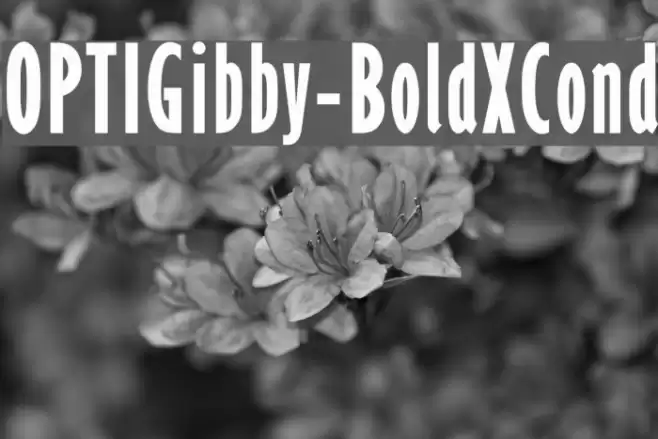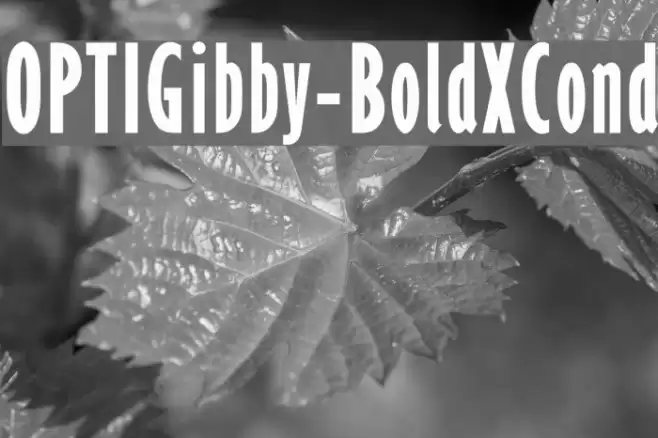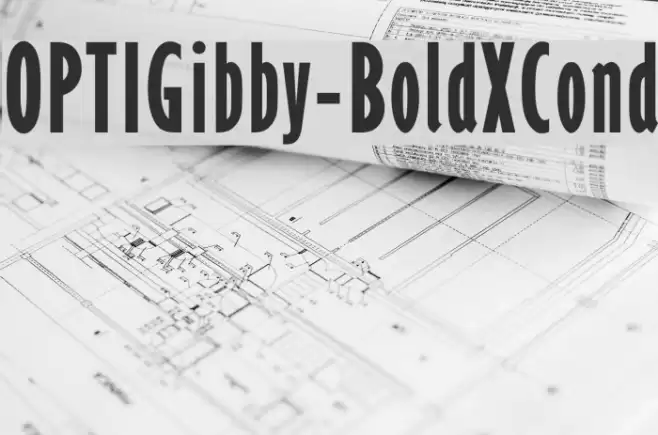
OPTIGibby-BoldXCond Font
OPTIGibby-BoldXCond Description
This font features a bold and condensed style, characterized by its tall, narrow letterforms and strong presence. The uppercase and lowercase letters maintain a consistent width, giving the typeface a uniform appearance. The numbers and special characters complement the alphabet with similar boldness and condensed proportions. The overall design is striking and impactful, making it suitable for attention-grabbing headlines and titles. The font's clean lines and lack of serifs contribute to its modern and assertive aesthetic.
A bold, condensed font with tall, narrow letterforms and a modern, impactful style from Uncategorized fonts.
- Proposed Projects: Ideal for posters, headlines, branding, and any design requiring a strong visual impact.
- Width: Condensed
- Character Spacing: Tight